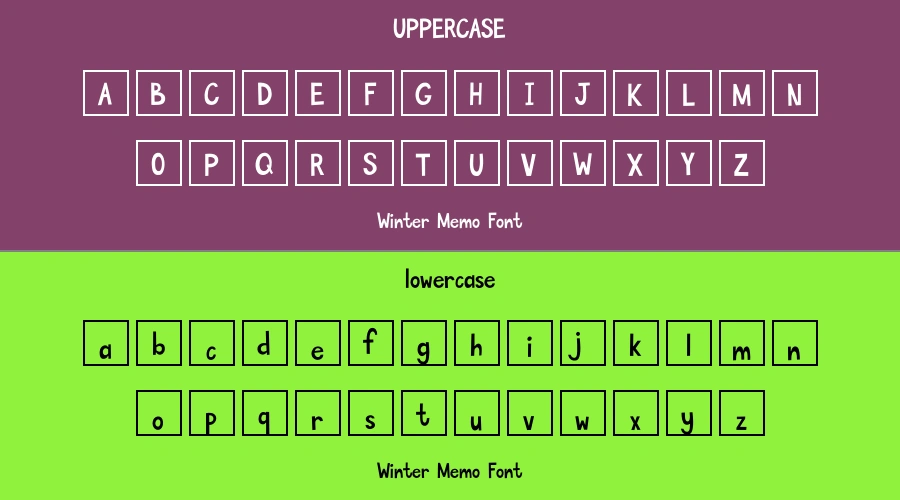
About Winter Memo Font
Winter Memo Font stands out for its distinctive combination of elegant spacing and accuracy. Ideal for financial statements, it provides the authenticity and visual authority that professional projects demand. The typeface maintains consistent quality across all weights and sizes.
Key features include refined concave curves and practical arrow sets, enhancing typographic expression. In regulatory documents applications, Winter Memo Font demonstrates exceptional output consistency. The crossbar height and institutional acceptance contribute to its distinctive character and professional appeal.